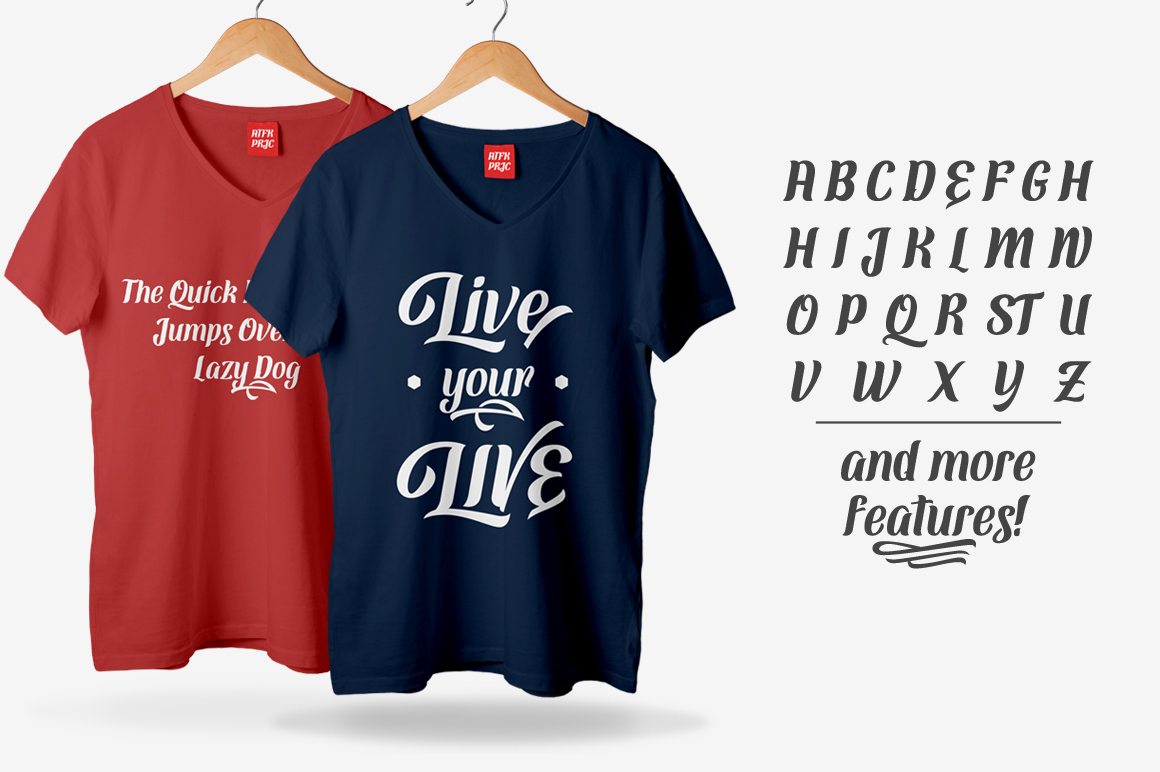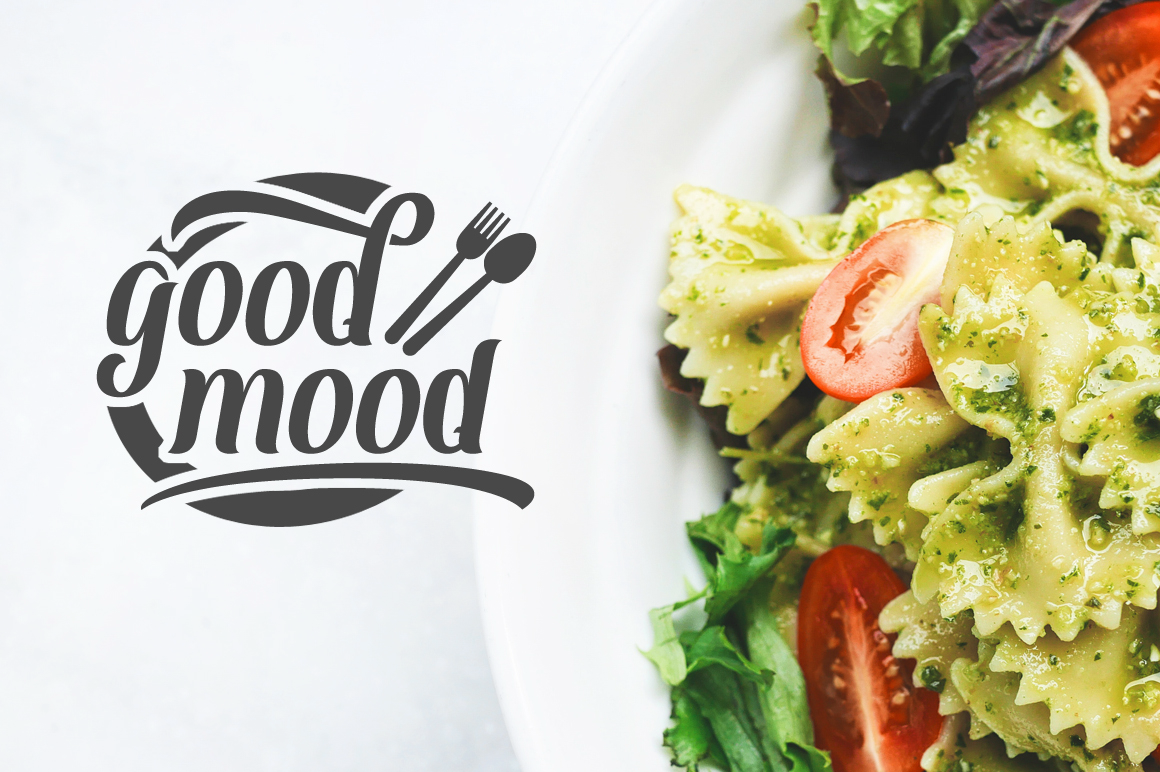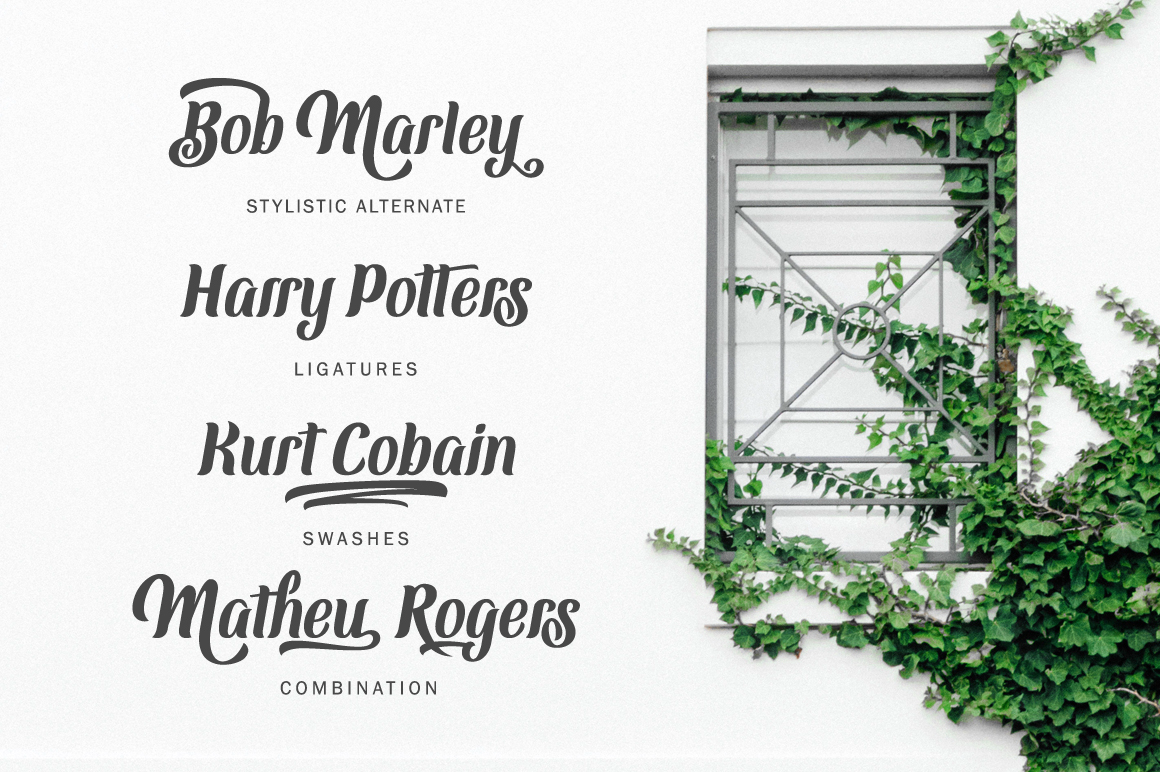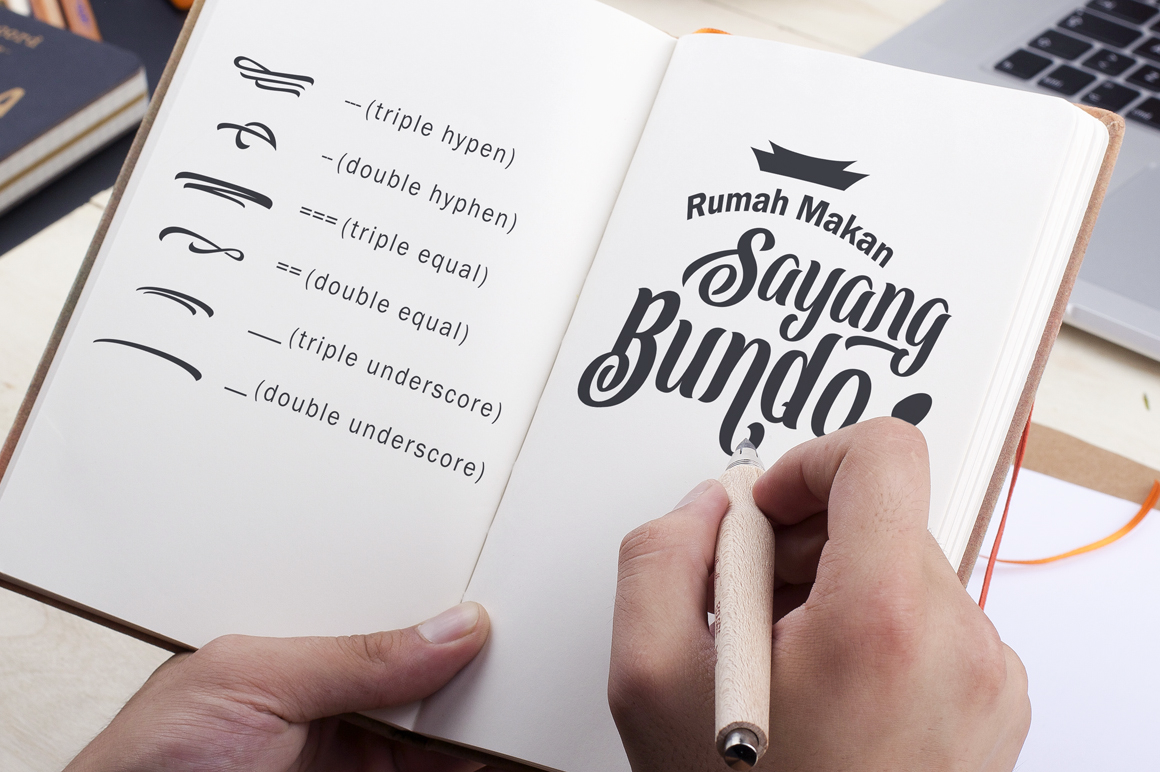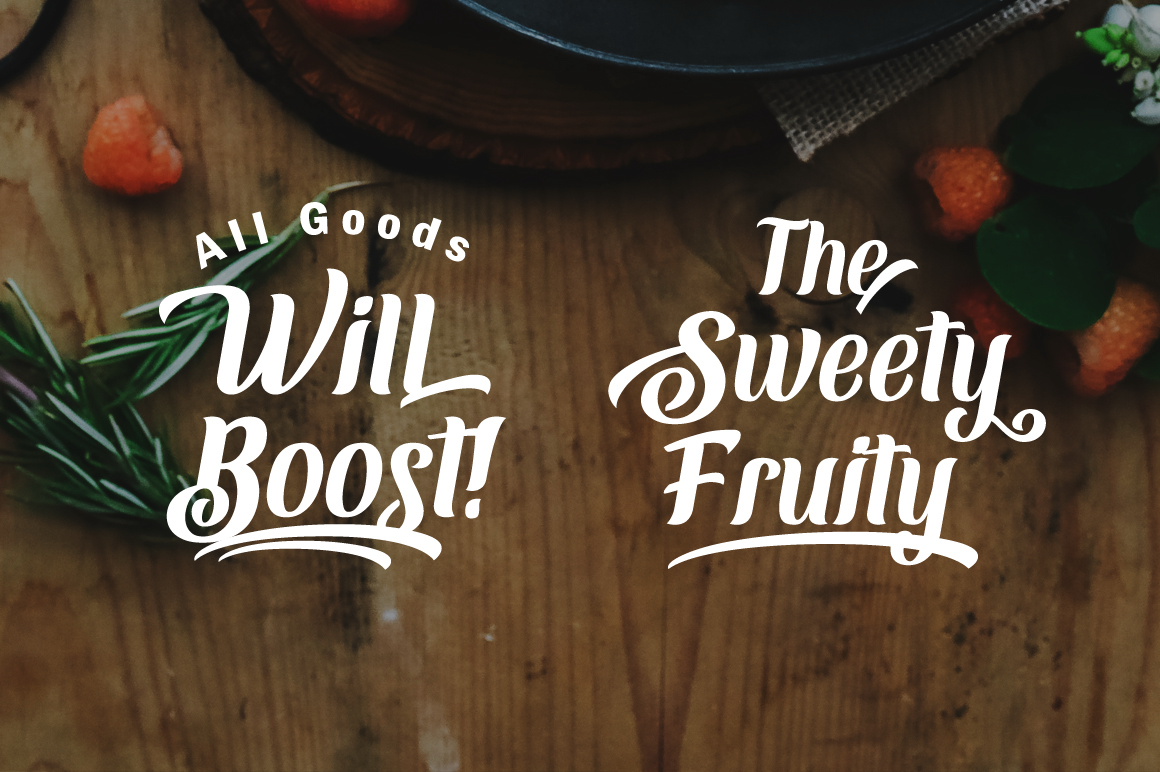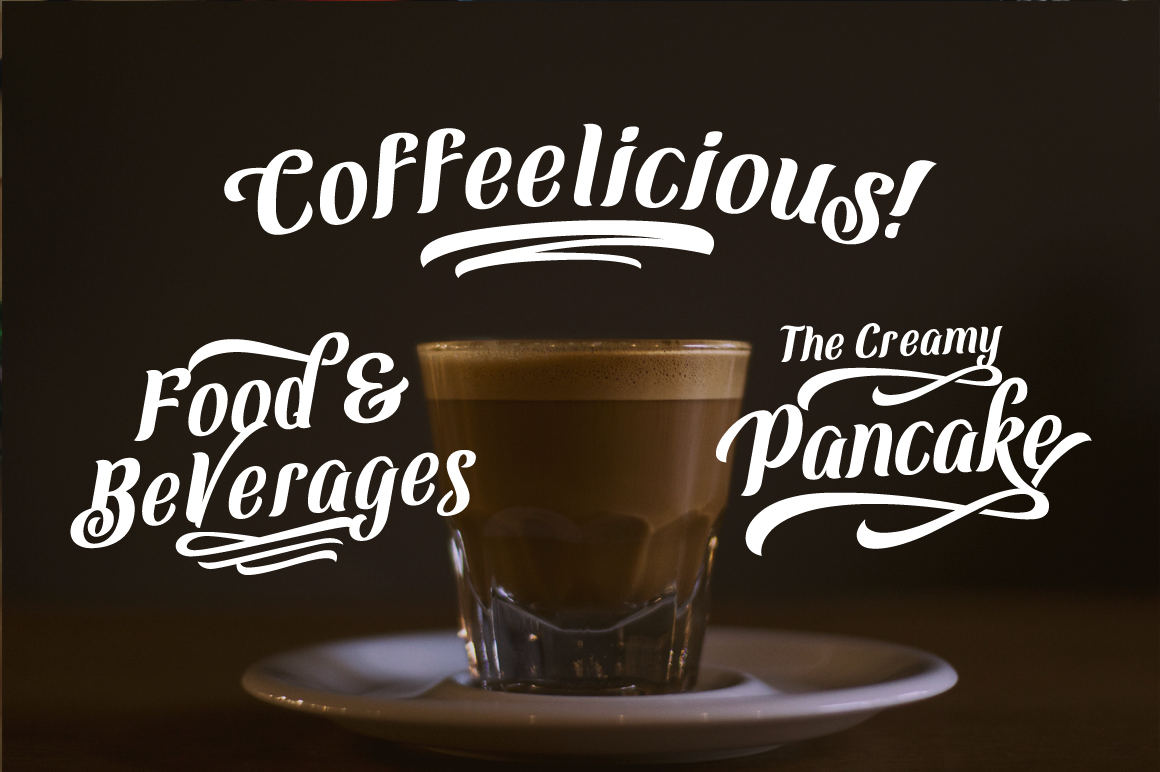
The Dakmodal Font: A Stunning Brush Lettered Typeface
I’ll never forget the moment I stumbled upon the Dakmodal font while working on a branding project for a crafty client. I was on a mission to find the perfect font that would capture the essence of her handmade products, but everything I tried seemed either too formal or too quirky. That’s when I discovered Dakmodal – a semi-formal, brush lettered typeface that instantly resonated with my client’s aesthetic. In this article, I’ll share my experience with Dakmodal, its features, and how to make the most of it in your designs.
An Honest Review of Dakmodal
- ✨ The Dakmodal font has a unique, flexible look and feel that works beautifully for crafty, creative projects.
- ✅ Its semi-formal, unconnected letters offer a refreshing alternative to traditional serif and sans-serif fonts.
- 🎨 The brush lettered style gives it a personal, hand-crafted feel that’s perfect for branding, packaging, and social media graphics.
While Dakmodal is an excellent font, it’s not without its quirks. For instance:
- 🤔 The font’s flexibility can sometimes make it tricky to use in very formal or traditional designs.
- ⚠️ Some users might find the lack of connections between letters a bit challenging for certain design applications.
- Experiment with the font’s OpenType features, such as stylistic alternates, to add variety to your text.
- Explore the glyphs panel to find alternative characters and extend your design’s creative possibilities.
The Story Behind Dakmodal
While the exact origins of Dakmodal are unclear, it’s likely that its designer was inspired by the world of hand-lettering and brush calligraphy. The font’s semi-formal, unconnected letters seem to reflect a desire to capture the essence of hand-crafted typography in a digital format. Whether or not this story is entirely true, Dakmodal’s unique personality has undoubtedly captured the hearts of designers and crafters alike.
Q: What makes Dakmodal a semi-formal font?
A: Dakmodal’s semi-formal nature comes from its balance between structured letterforms and a relaxed, hand-crafted feel. This makes it suitable for a wide range of design applications, from creative projects to more formal branding.
Q: Does Dakmodal support OpenType features?
A: Yes, Dakmodal supports OpenType features, including stylistic alternates and glyphs. This allows for a high degree of customization and creativity in your designs.
Q: Is Dakmodal suitable for body text?
A: While Dakmodal is a beautiful font, its semi-formal, brush lettered style might not be the best choice for long-form body text. It’s better suited for headings, titles, and short paragraphs where its unique personality can shine.